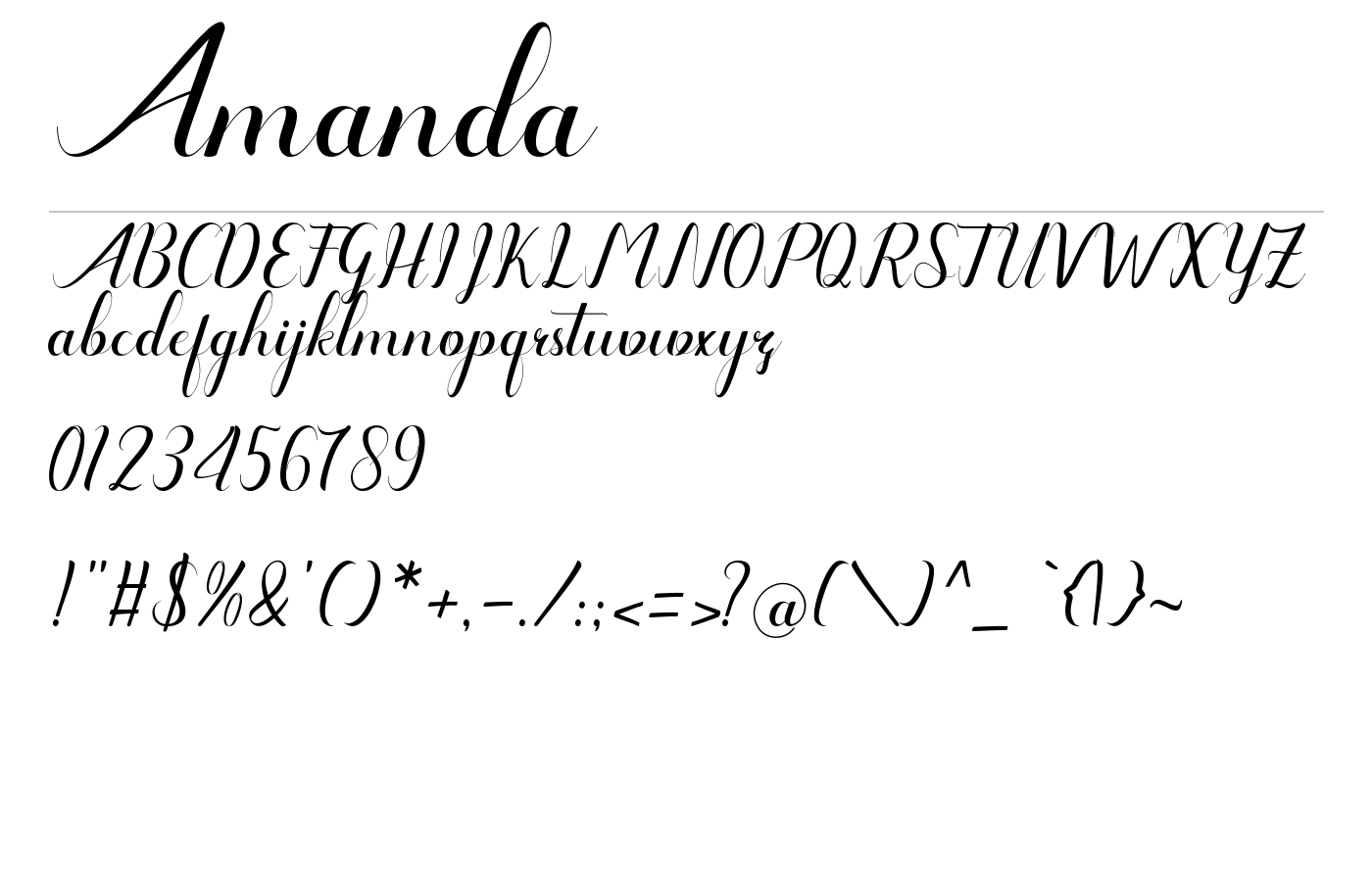
Amanda is an elegant script font characterized by its flowing, graceful strokes and refined contrast between thick and thin lines. Its tall, slender letterforms and delicate curves give it a sophisticated and stylish feel, making it ideal for luxury branding, wedding invitations, and high-end fashion projects where a touch of classic charm is desired. This font works best in headlines or decorative contexts where its ornamental beauty can shine.
Amanda Font